Anna Kulachek’s poster uses FS Dillon to depict her hometown Moscow
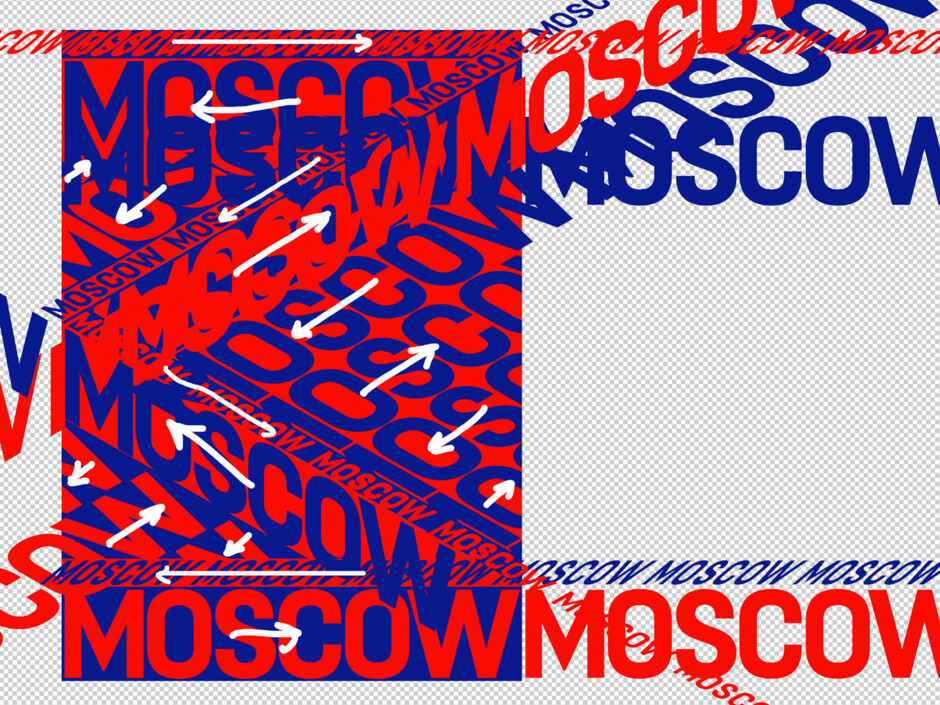
Anna Kulachek’s poster uses FS Dillon to depict her hometown Moscow
We have partnered with design publication It’s Nice That to create a series called ‘Local Characters’. The idea was to collaborate with graphic designers to create typographic projects inspired by the designer’s hometowns. In the first project we worked with graphic designer and art director Anna Kulachek whose hometown is Moscow.
Anna selected FS Dillon® for her project. She wanted to create a bold typographic poster inspired by the city’s architecture and needed a font to reflect the Russian people’s “honest and straightforward personalities”. FS Dillon works so well for this project because it is a highly functional font which was inspired by the Bauhaus and Construcktivist movements of that time. The letterforms are compact with a generous x-height and were designed for maximum impact – simple and direct.
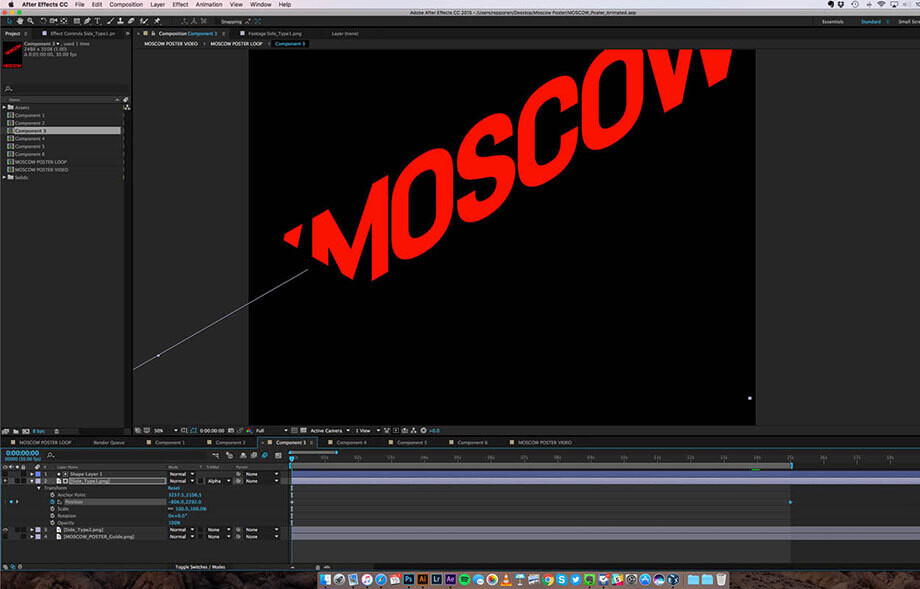
Anna created a bold and impactful animated poster in red and blue: